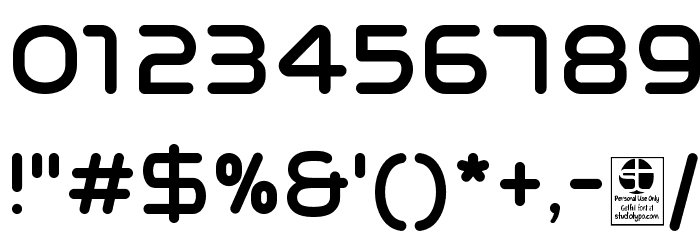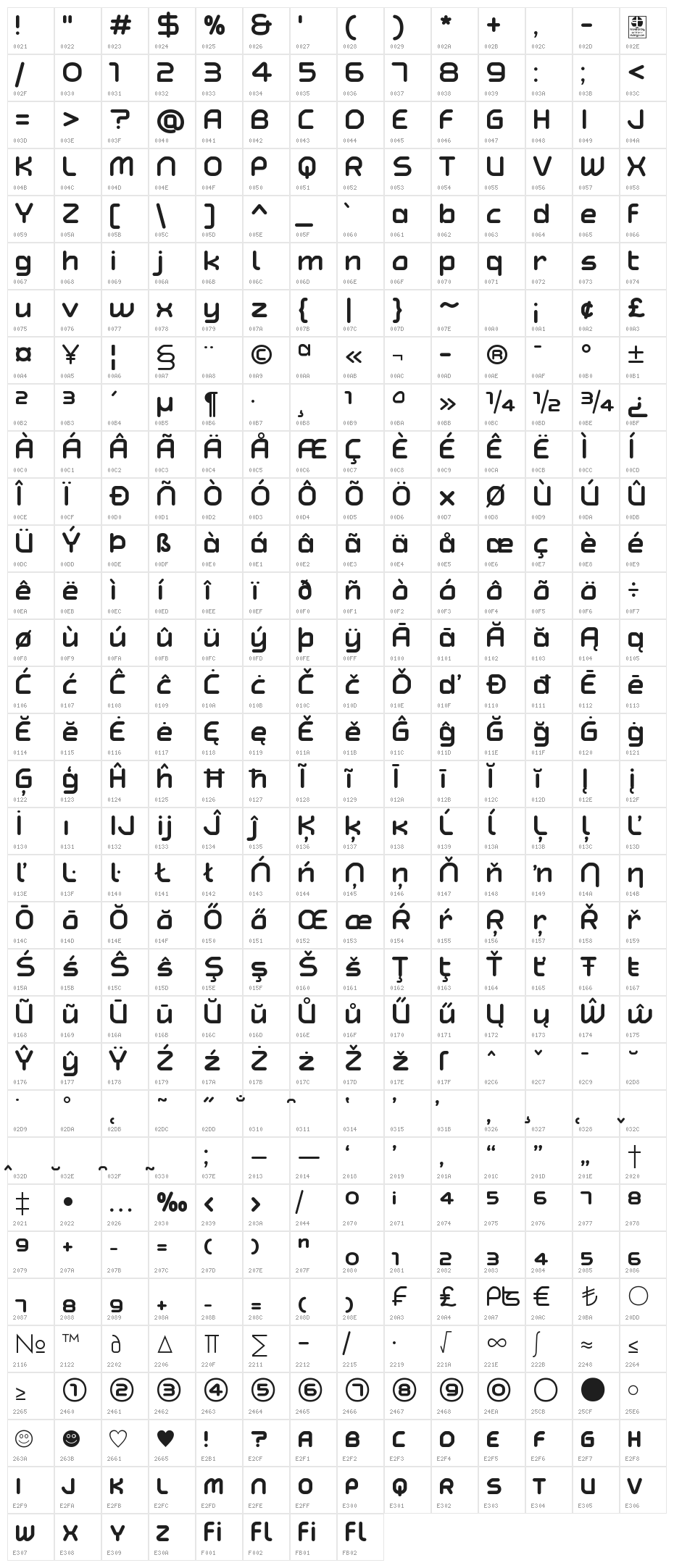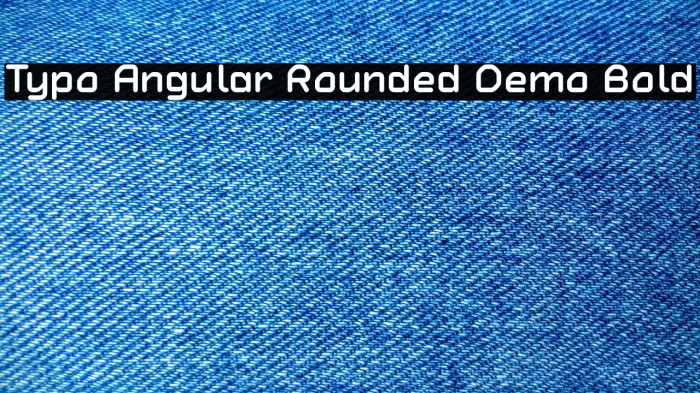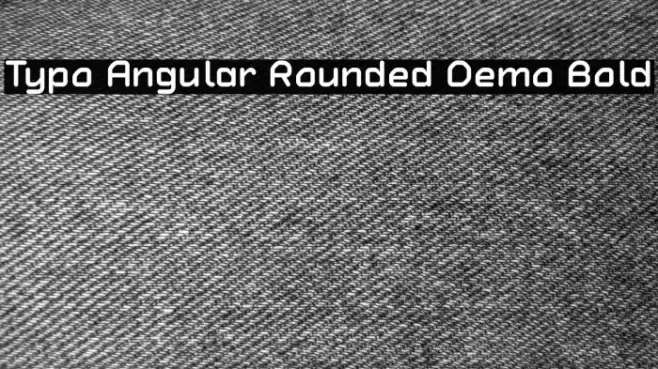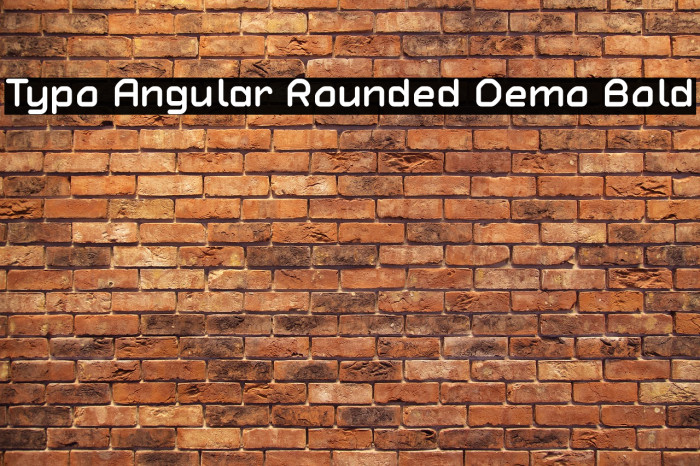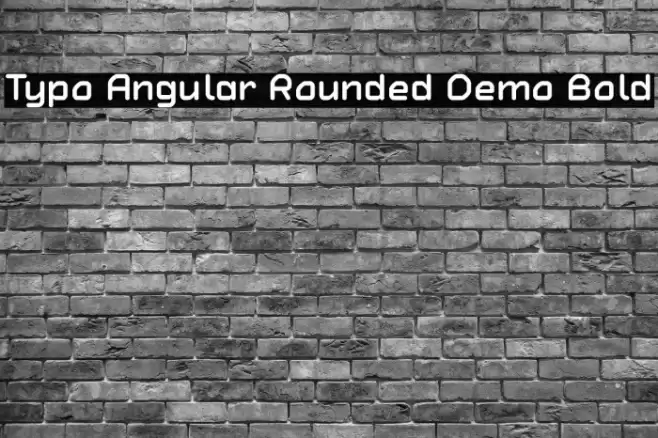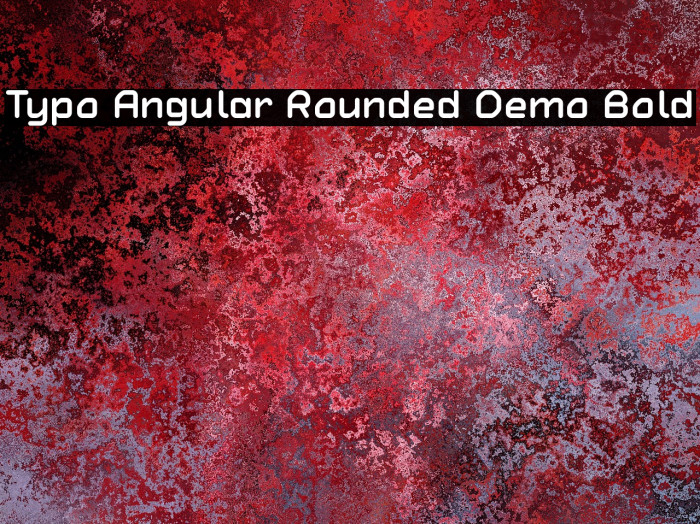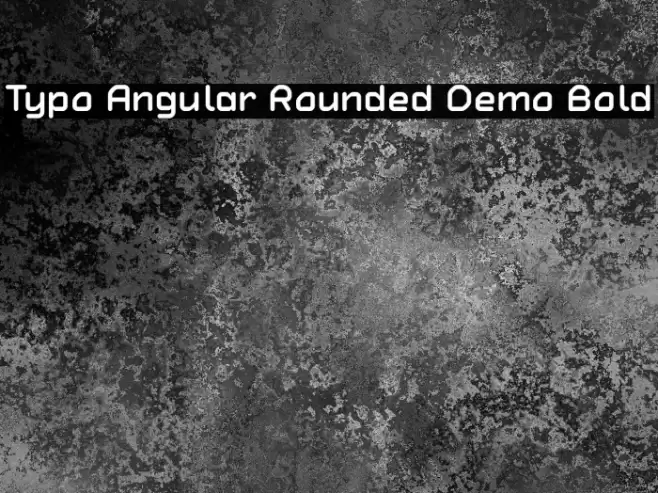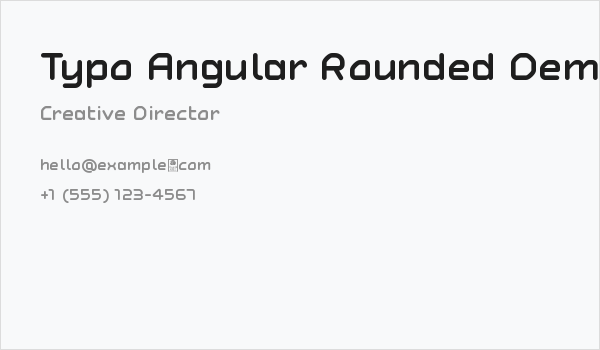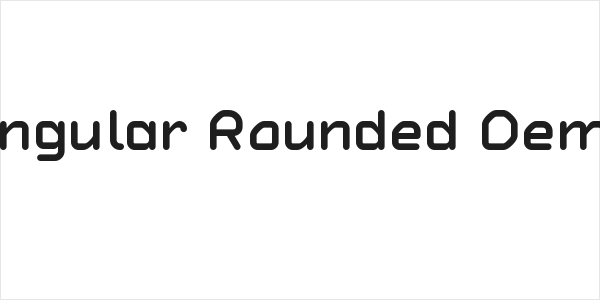
Typo Angular Rounded Demo Bold Font
Typo Angular Rounded Demo Bold Description
This font features a modern, rounded design with a bold weight, making it stand out with its smooth and clean lines. The characters are evenly spaced, providing a balanced and harmonious appearance. The rounded edges give it a friendly and approachable feel, while maintaining a professional look. It is versatile, suitable for both digital and print media. The font includes a full set of uppercase and lowercase letters, numbers, and a variety of special characters, ensuring comprehensive usability across different applications.
| Use Case | Headlines, Logos, User Interfaces |
| Proposed Projects | Ideal for branding, advertising, web design, and user interfaces due to its clean and modern appearance. |